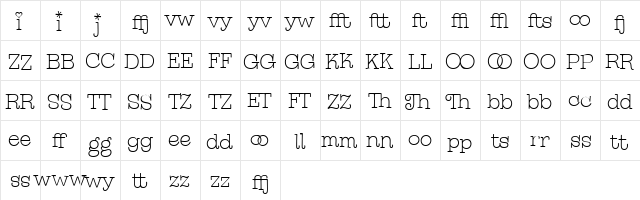
Shag-MysteryExtras Regular
| Foundry | House Industries |
| Designer | Ken Barber & Christian Schwartz |
Design Context for Shag-MysteryExtras Typeface
Shag-MysteryExtras takes a measured approach to typography — its balanced proportions and neutral character make it a reliable workhorse for both digital and print work.